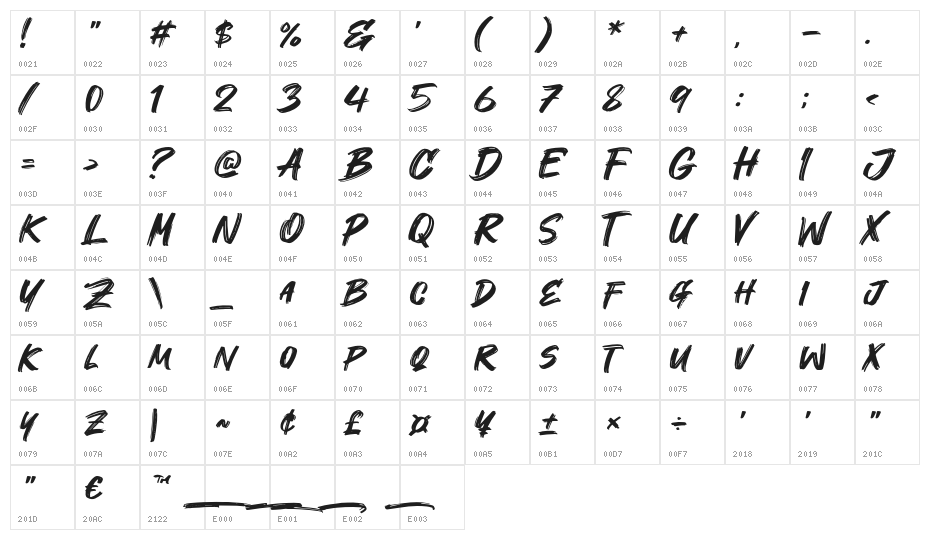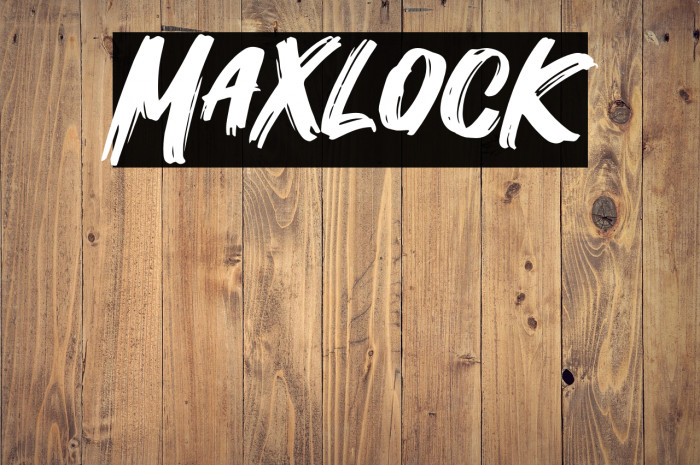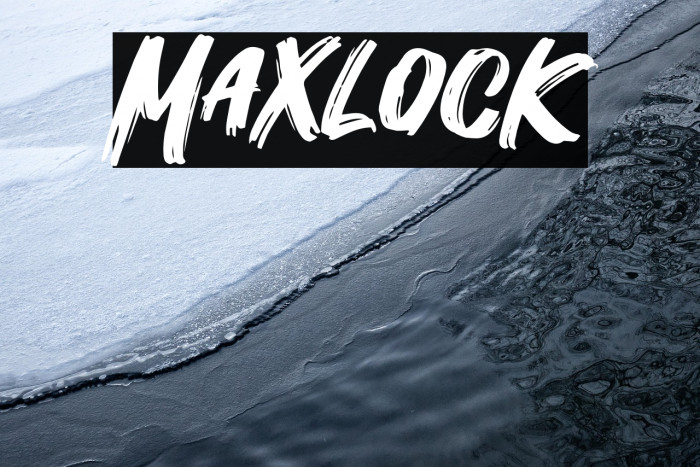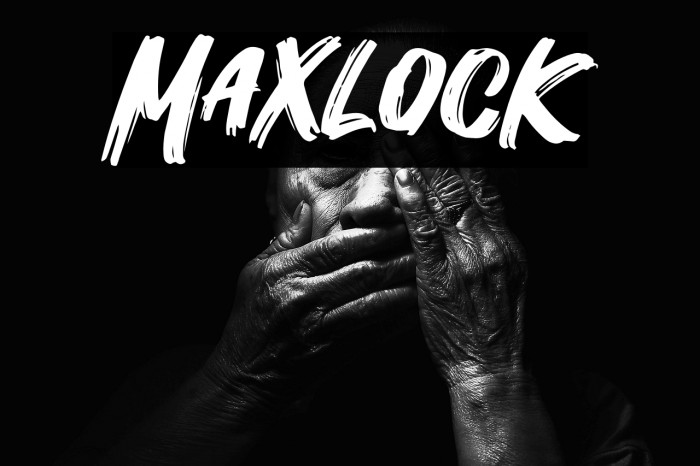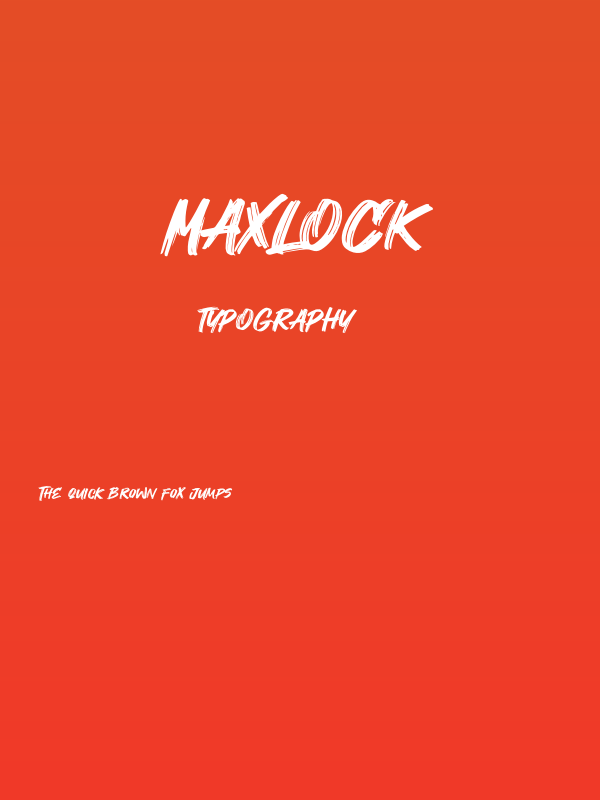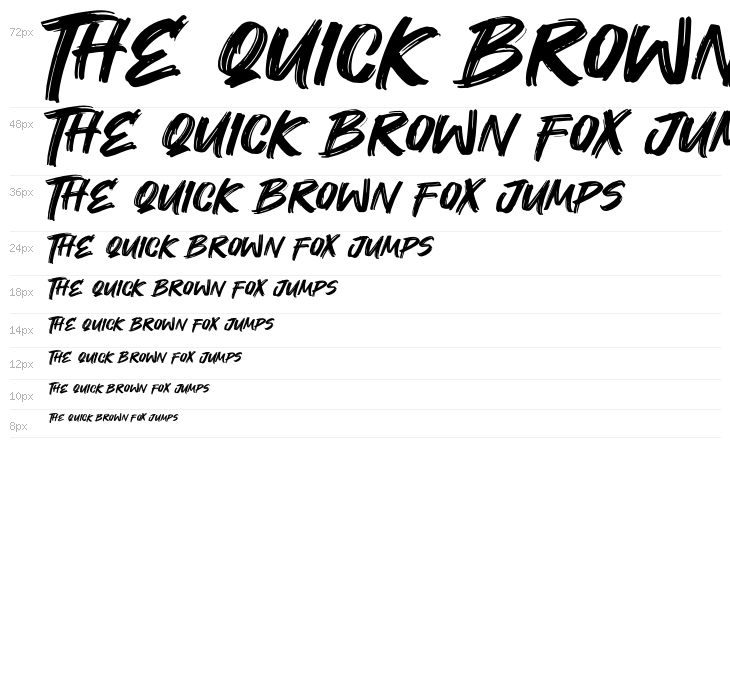
Maxlock Font
Maxlock Description
This font features a bold, brush script style with dynamic and energetic strokes. The letters are crafted with a sense of motion, giving them a lively and expressive appearance. The uppercase and lowercase characters maintain a consistent style, with thick, sweeping lines that suggest a hand-painted look. The numbers and special characters follow the same aesthetic, ensuring a cohesive appearance across all glyphs. This font is ideal for projects that require a personal touch or a sense of creativity and flair.
| Use Case | Logos, Headlines, Posters |
| Proposed Projects | Ideal for branding, posters, invitations, and any design that requires a personal and artistic touch. |